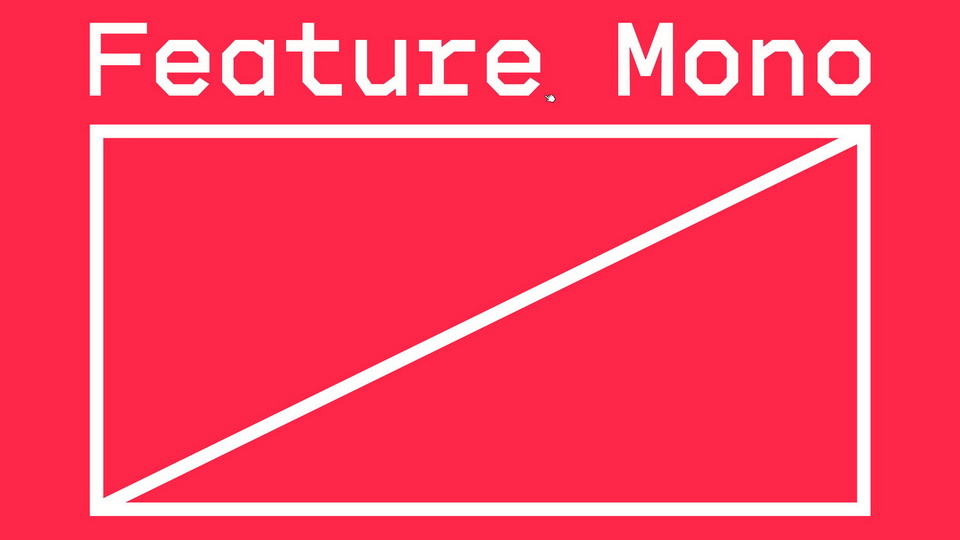
Download Feature Mono font, a monospaced typeface with 6-weights that includes an extended character composition, several alternate sets, pseudo and character graphics, and coding ligatures. Feature Mono was inspired by early monospace computer fonts from the 1960s.
Designer: Anastasia Vrublevskaya